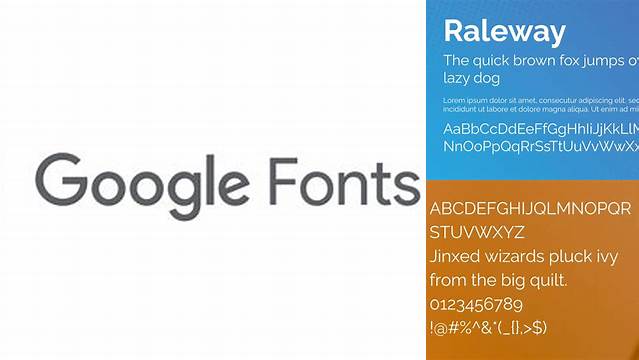
Using Google Fonts: Raleway With Href
Let's dive into how to use the Raleway font from Google Fonts in your web projects using the <link> tag and its href attribute. We'll cover everything from the basics to more advanced techniques, ensuring you're a pro at implementing this beautiful font. So, buckle up, and let's get started!
What is Google Fonts?
Google Fonts is a fantastic, free library of over a thousand font families that you can use on your website. It's designed to make web typography easy and accessible, offering a wide range of styles to enhance your site's design. Using Google Fonts can improve the visual appeal and readability of your content, making it more engaging for your audience. Plus, because the fonts are hosted on Google's servers, they are delivered quickly and efficiently, which helps with your site's performance. For those new to web design, integrating Google Fonts is often one of the first steps in creating a professional-looking website.
Why Use Raleway?
Raleway is a popular and versatile sans-serif font known for its elegant and modern look. Its clean lines and balanced letterforms make it suitable for a wide range of applications, from headings and titles to body text. Raleway's distinct appearance can add a touch of sophistication to any design, making it a favorite among designers and developers alike. Whether you're working on a minimalist blog or a corporate website, Raleway can help you achieve a polished and professional aesthetic. The font's legibility and aesthetic appeal are just a few reasons why it has become a staple in web design.
Understanding the href Attribute
Basic Implementation: Linking Raleway
Specifying Font Weights and Styles
Raleway comes in various weights and styles, such as regular, bold, italic, and more. To specify which weights and styles you want to include, you can modify the href URL. For example, to include regular (400) and bold (700) weights, you would use:
Using Raleway in Your CSS
Once you've linked the Raleway font, you can use it in your CSS by specifying it in the font-family property. Here’s how you can do it:
body {
font-family: 'Raleway', sans-serif;
}
h1, h2, h3 {
font-family: 'Raleway', sans-serif;
}
In this example, the font-family property is set to 'Raleway' for the body and heading elements. The sans-serif value is a fallback in case the Raleway font fails to load. Applying the font in your CSS is the final step in integrating Raleway into your website, ensuring that your text is styled according to your design specifications.
Alternative Ways to Load Google Fonts
Besides using the <link> tag, there are other ways to load Google Fonts. One popular alternative is using the @import rule in your CSS file. Another method is to use JavaScript libraries like Web Font Loader for more advanced control over font loading. Each method has its advantages and disadvantages, so choosing the right one depends on your specific needs and preferences. While the <link> tag is straightforward and widely supported, exploring other options can provide additional flexibility and performance benefits.
Optimizing Font Loading for Performance
Loading fonts can sometimes impact your website's performance. To optimize font loading, consider these tips: use font-display to control how fonts are rendered, load only the necessary font weights and styles, and consider preloading fonts to prioritize their download. These strategies can help minimize the flash of unstyled text (FOUT) and improve the overall user experience. Optimizing font loading is an essential part of website performance tuning, especially for sites that rely heavily on custom fonts.
Raleway and Content Strategy
The choice of font, such as Raleway, should align with your overall content strategy. Consider the tone and style of your content and choose a font that complements it. A consistent use of Raleway across your website can help reinforce your brand identity and create a cohesive user experience. Content strategy is a critical component of successful web design, and typography plays a key role in it.